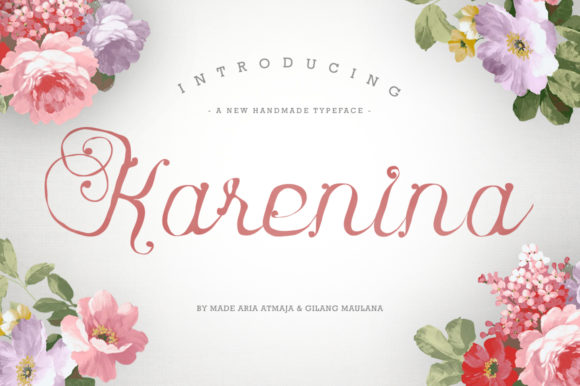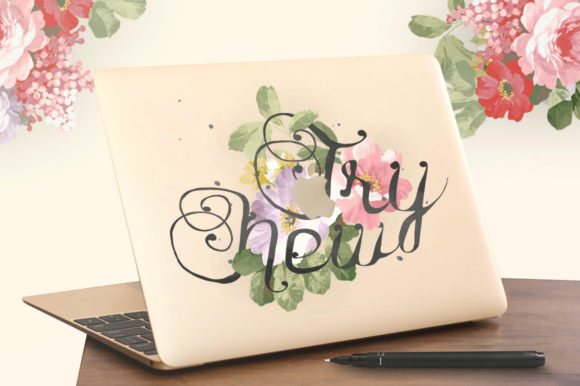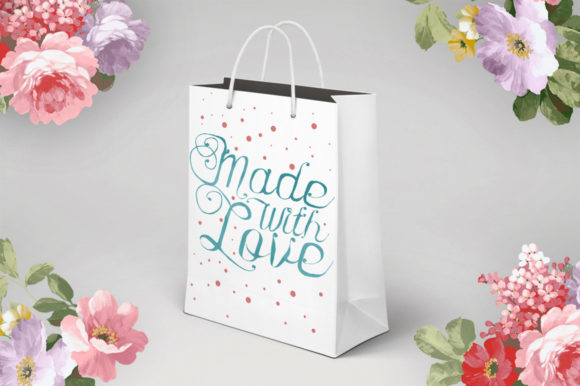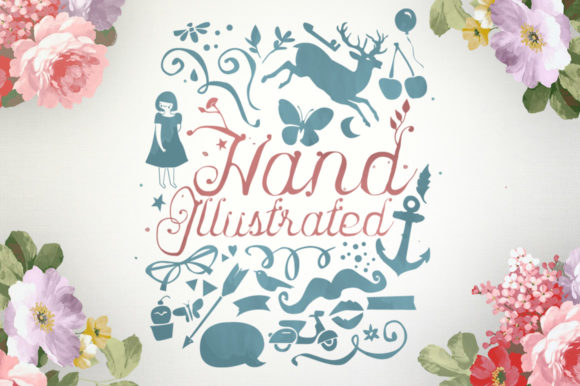
HomeScript FontsKarenina Font Script Fonts Karenina Font FacebookXPinterestWhatsApp Karenina Font Poster 2 Karenina Font Poster 3 Karenina Font Poster 4 About Karenina Font Karenina is a sweet and delicate script, full of charm. Get inspired by its contemporary elegance. DOWNLOAD ON CREATIVE FABRICAThis font is sold and delivered by Creative Fabrica. Font Canyon may earn a commission if you buy through this link. People also explored Gloriousity Font Darllinge Font Grayscale Font Stay Positive Font Technocard Line Font Christmas December Font Kansha Font Ramadan Font Maple Dream Font 336 0 TagsKarenina Font Previous articleBenihana FontNext articleSobbers Font LEAVE A REPLY Cancel reply Comment: Please enter your comment! Name:* Please enter your name here Email:* You have entered an incorrect email address! Please enter your email address here Website: Save my name, email, and website in this browser for the next time I comment. Personal Use Free 5cent Free Graffiti Personal Use Free Read more about this font Rocketto Personal Use Free Read more about this font Valentine Chips Personal Use Free Read more about this font Made of Concrete Personal Use Free Read more about this font BLOG Elegant Wedding Invitation Fonts – Handwritten & Script Fonts Elegant Wedding Invitation Fonts Your wedding day is one of the most important moments of your life, and every detail matters—including your invitation design. Our... Best Fonts for T-Shirt Design – Top 2025 Picks Top 10 Handwritten Fonts That Elevate Your Designs To increase your work productivity, choose the most readable fonts.